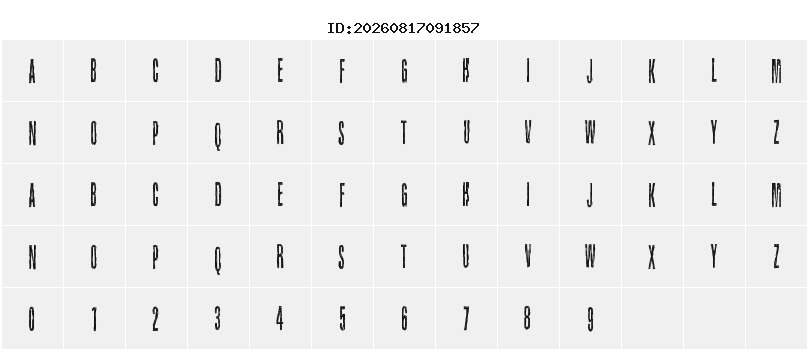
Sound of silence Preview
• Font Name: Sound of silence
• Full Font Name: Sound of silence
• Designer: junkohanhero
About Sound of silence.ttf
Sound of silence.ttf is a modern, elegant sans-serif font designed for ultimate readability and visual harmony. Perfect for branding, headlines, web design, and print materials.